Unlock Stunning Designs: Top 8+ Handwritten Fonts Under $10 on GraphicRiver (2025)
Dream Notes - Handwritten Font
"Dream Notes" is a cute and charming handwritten font that brings a touch of whimsy to any project. Its natural, slightly imperfect strokes make it ideal for children's books, greeting cards, social media posts, and any design that needs a friendly and approachable vibe. It includes uppercase and lowercase letters, numbers, punctuation, and multilingual support.
Who it's suitable forBloggers, social media managers, designers creating content for children or personal projects.
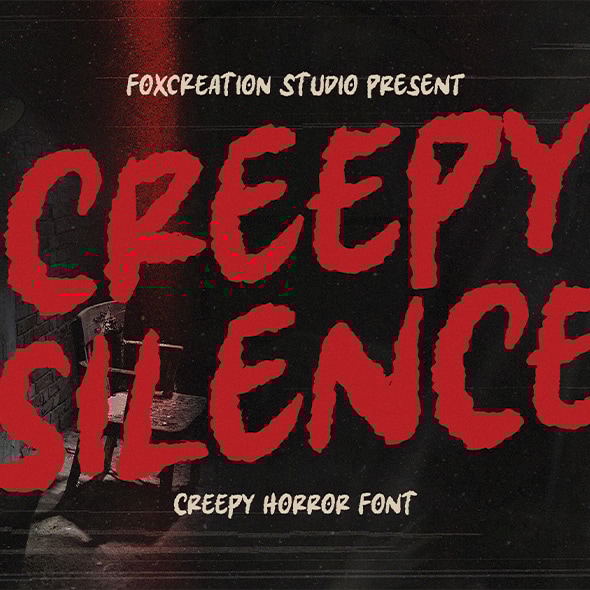
For projects that require a chilling and suspenseful atmosphere, "Creepy Silence" is the perfect choice. This horror-themed handwritten font features irregular, scratchy lines that evoke a sense of fear and unease. It's excellent for movie posters, Halloween designs, game titles, and anything aiming for a dark and mysterious aesthetic. The font includes uppercase and lowercase letters, numbers, and basic punctuation.
Who it's suitable forGraphic designers working on horror-themed projects, game developers, and event organizers for Halloween or similar events.
"Rinaska Signature" offers an elegant and flowing handwritten script perfect for adding a touch of sophistication to your designs. Its stylish curves and clean lines make it ideal for logos, branding, wedding invitations, watermarks, and any project seeking a personal and refined touch. This font comes with uppercase and lowercase letters, numerals, punctuation, and stylistic alternates and ligatures for added flair.
Who it's suitable forBranding designers, wedding planners, photographers, and small business owners looking for a stylish signature font.
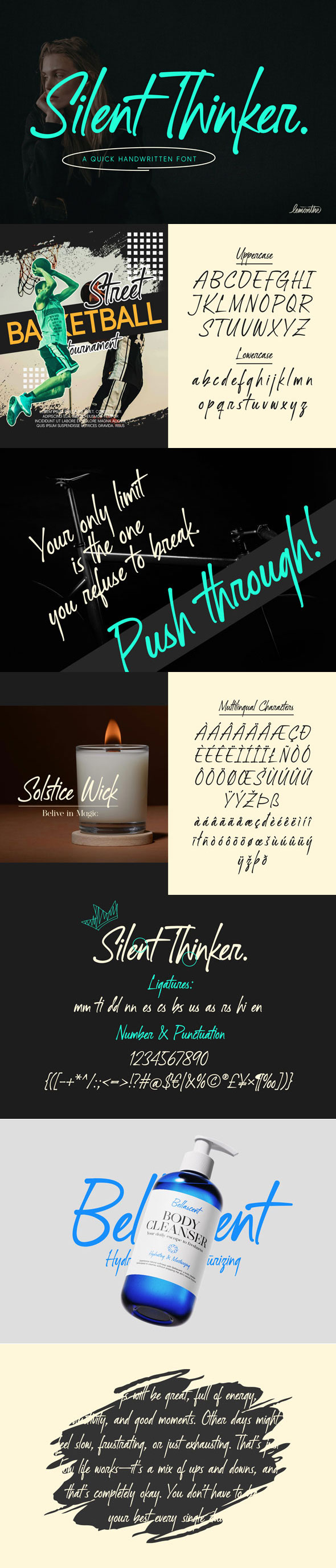
"Silent Thinker" is a unique and slightly quirky handwritten font with a distinct personality. Its uneven baseline and playful letterforms give it a charming and approachable feel, making it suitable for book covers, posters, social media graphics, and designs that need a touch of individuality. The font includes uppercase and lowercase letters, numbers, punctuation, and supports multiple languages.
Who it's suitable forAuthors, illustrators, social media artists, and designers seeking a font with a unique and friendly character.
"Chocolizious" is a sweet and playful display font with a handwritten touch. Its chunky, rounded letters evoke a sense of fun and indulgence, making it perfect for food-related designs, children's products, posters, and packaging. This font includes uppercase and lowercase letters, numbers, punctuation, and some stylistic alternates to add extra sweetness to your creations.
Who it's suitable forFood bloggers, designers working with children's brands, and creatives looking for a fun and quirky display font.
"Distery Bvarly" is a bold and impactful display font with a unique handwritten style. Its thick, slightly distressed letters give it a vintage and edgy feel, suitable for posters, album covers, branding, and designs that need a strong and memorable visual presence. The font features uppercase and lowercase letters, numbers, and punctuation.
Who it's suitable forMusic event organizers, designers working on vintage or retro-themed projects, and brands seeking a strong and unique typeface.
"Centinen de Groovy" brings a fun and retro vibe with its groovy handwritten style. Its bouncy and slightly irregular characters are perfect for designs that need a touch of nostalgia and playfulness, such as posters, flyers, social media graphics, and vintage-inspired projects. The font includes uppercase and lowercase letters, numbers, and punctuation.
Who it's suitable forDesigners working on retro-themed projects, social media content creators, and anyone looking for a fun and funky font.
"Celestial Signature" is an elegant and delicate handwritten font that exudes sophistication and charm. Its flowing script and graceful curves make it ideal for high-end branding, wedding stationery, jewelry designs, and projects that require a touch of luxury and femininity. This font comes with uppercase and lowercase letters, numbers, punctuation, and a set of beautiful swashes and ligatures.